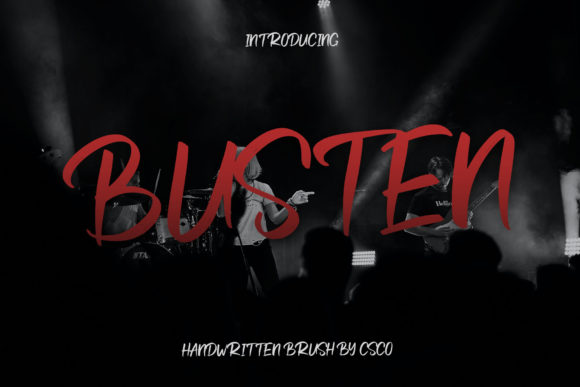
The Ultimate Guide to Busten Font: Elevate Your Designs with this Trendy, Readable, and Bold Display Font
I’ll never forget the time I was working on a project for a client who wanted a bold, eye-catching font to make their brand stand out. I scoured the internet for hours, trying out different fonts, but none seemed quite right. That was until I stumbled upon Busten Font. 💡
This trendy, readable, and bold display font has been a game-changer for my designs, and I’m excited to share my experience with you. In this article, we’ll dive into the world of Busten Font, exploring its features, how to use it, and what makes it so special.
An Honest Review of Busten Font
What I Love About Busten Font ✨
- ✅ Bold and eye-catching: Busten Font is perfect for making a statement with your designs. Its bold and sturdy letters grab attention and demand to be noticed.
- ✅ Readable: Despite its boldness, Busten Font is surprisingly readable, even at smaller sizes. This makes it versatile for use in a variety of design projects.
- ✅ Trendy: Busten Font has a modern, trendy vibe that’s perfect for designers who want to stay on top of the latest design trends.
- ✅ OpenType features: Busten Font comes with a range of OpenType features, including glyphs and stylistic alternates, which give you even more creative control over your designs.
- ⚠️ Limited use in body text: While Busten Font is readable, it’s not ideal for use in long blocks of body text. Its boldness can make it overwhelming to read in large quantities.
- ⚠️ May not be suitable for all design styles: Busten Font has a distinct personality that may not be suitable for all design styles. It’s perfect for bold, modern designs, but may not work as well for more traditional or elegant designs.
The Backstory of Busten Font
Busten Font was designed by a team of creatives who wanted to create a bold, modern font that would make a statement. Inspired by the latest design trends, Busten Font is the perfect combination of style and readability.
| Font Name | Busten Font |
| Author | craftsupplyco |
Q: What is Busten Font?
A: Busten Font is a trendy, readable, and bold display font that’s perfect for making a statement with your designs.
Q: Is Busten Font suitable for body text?
A: While Busten Font is readable, it’s not ideal for use in long blocks of body text. Its boldness can make it overwhelming to read in large quantities.